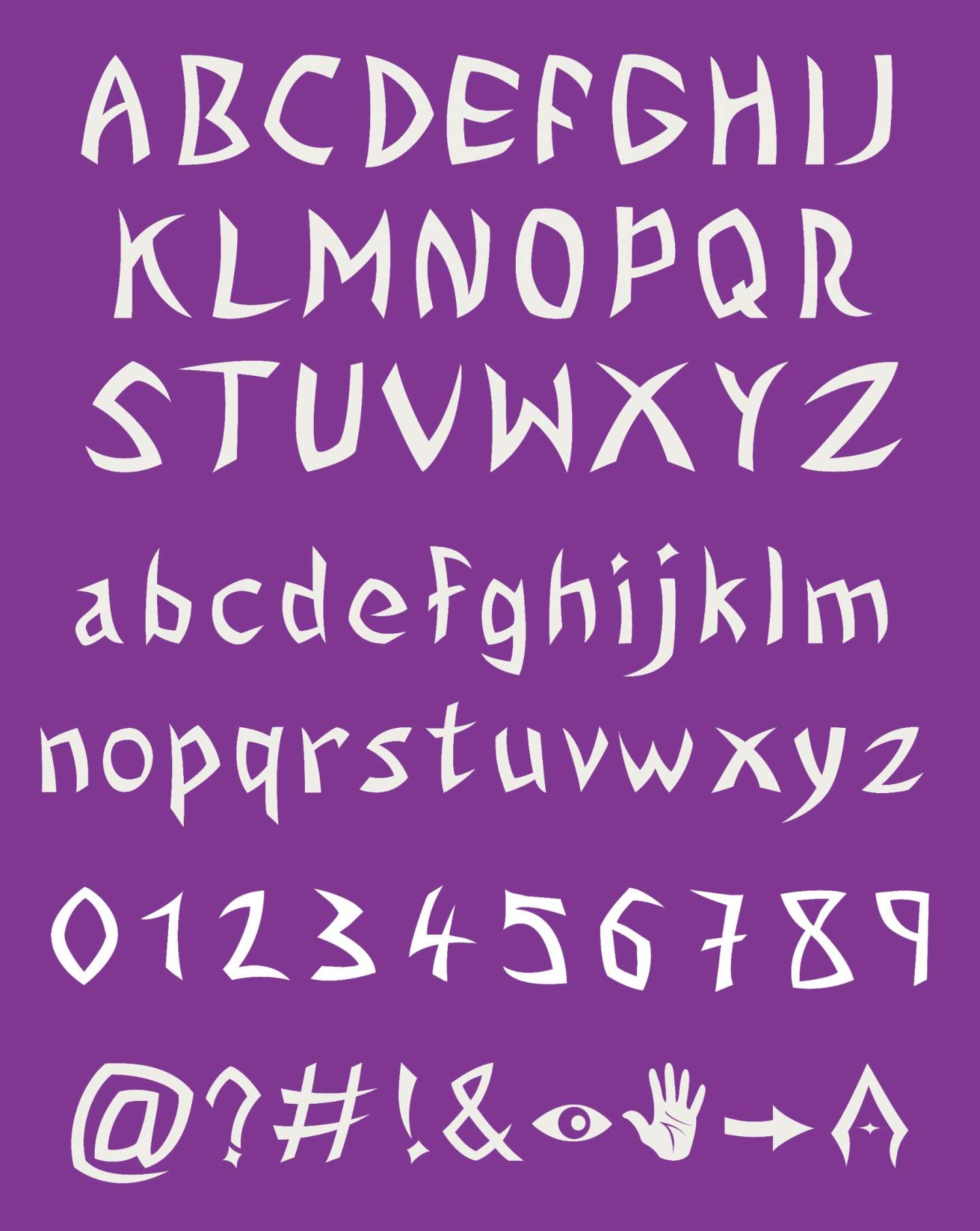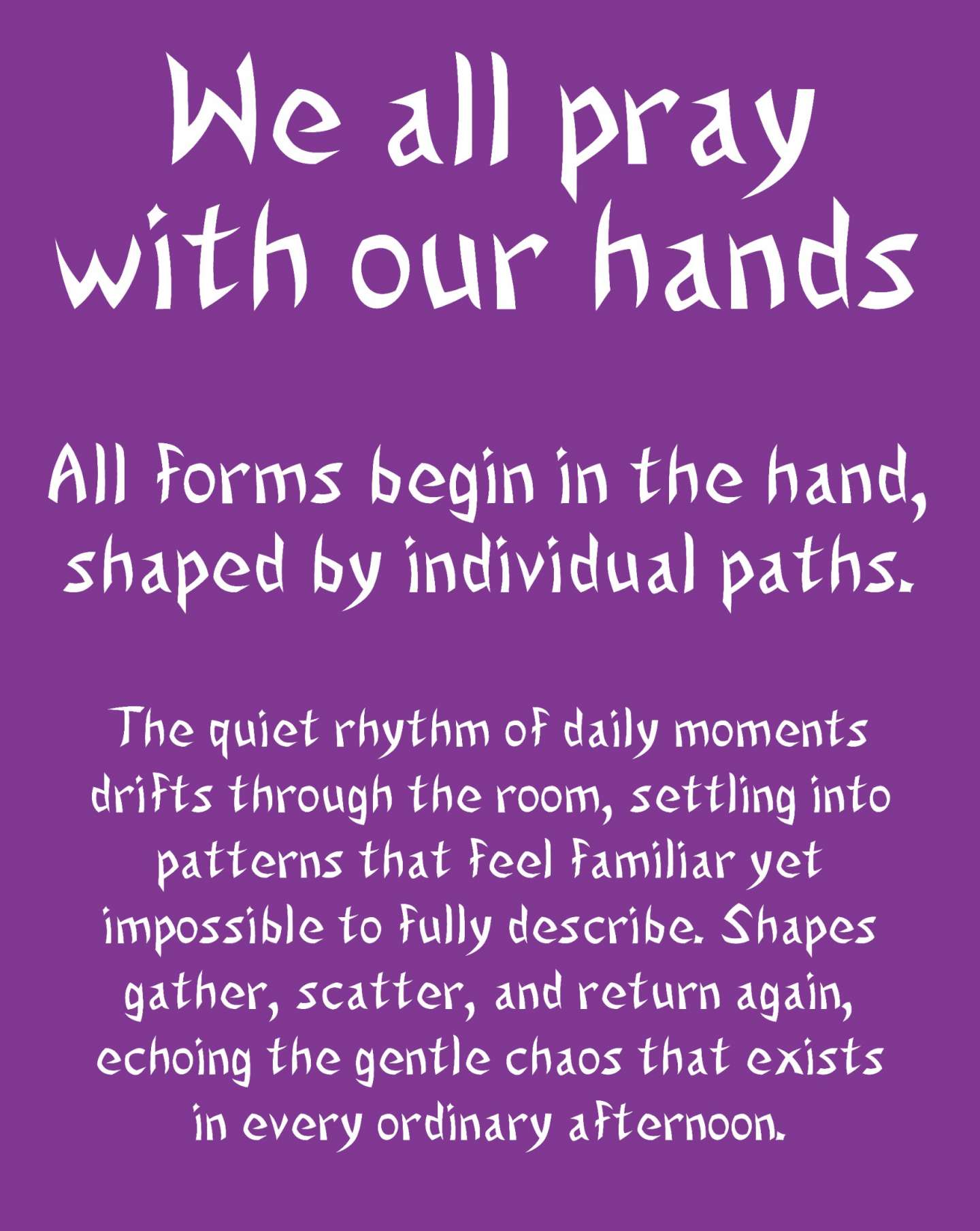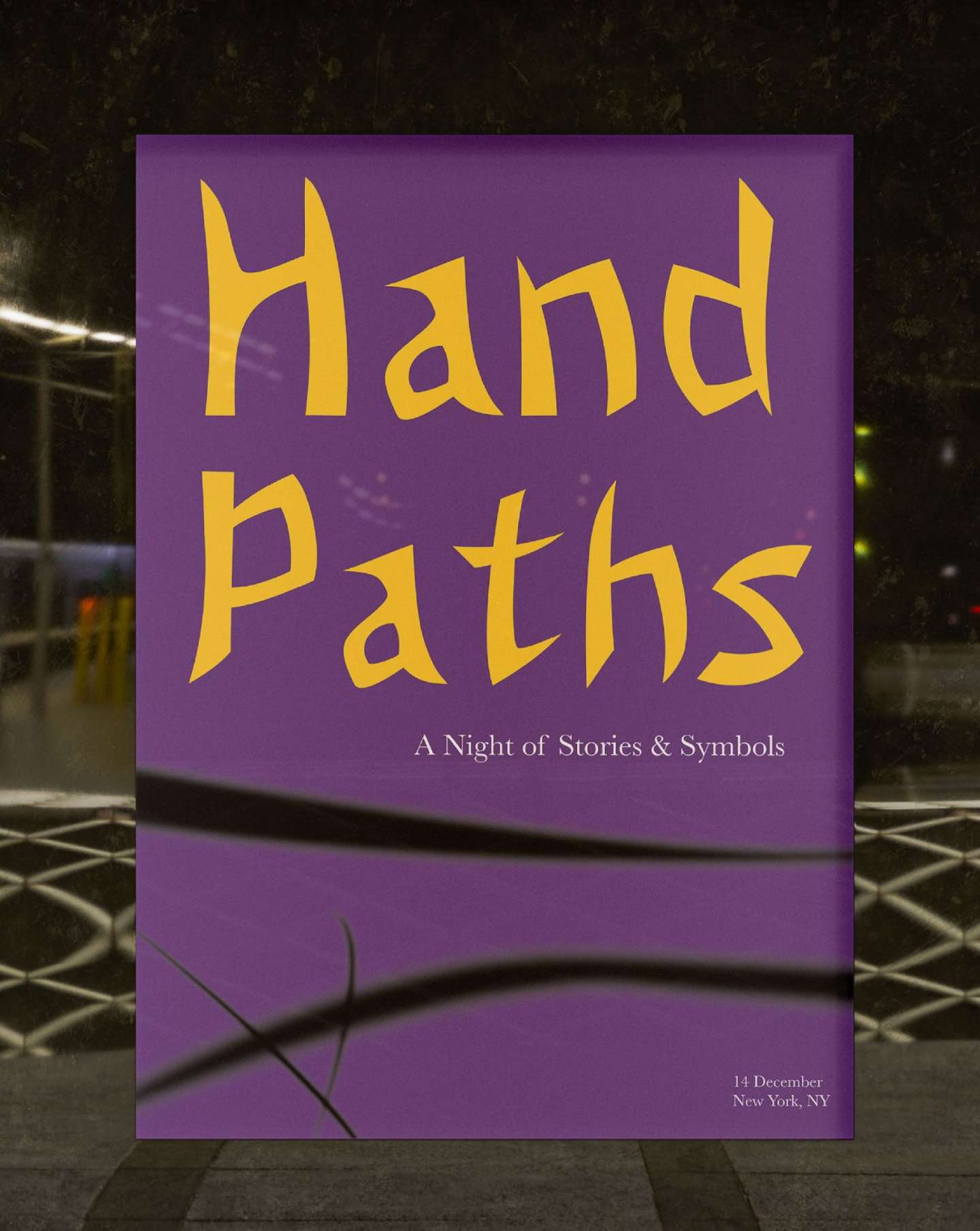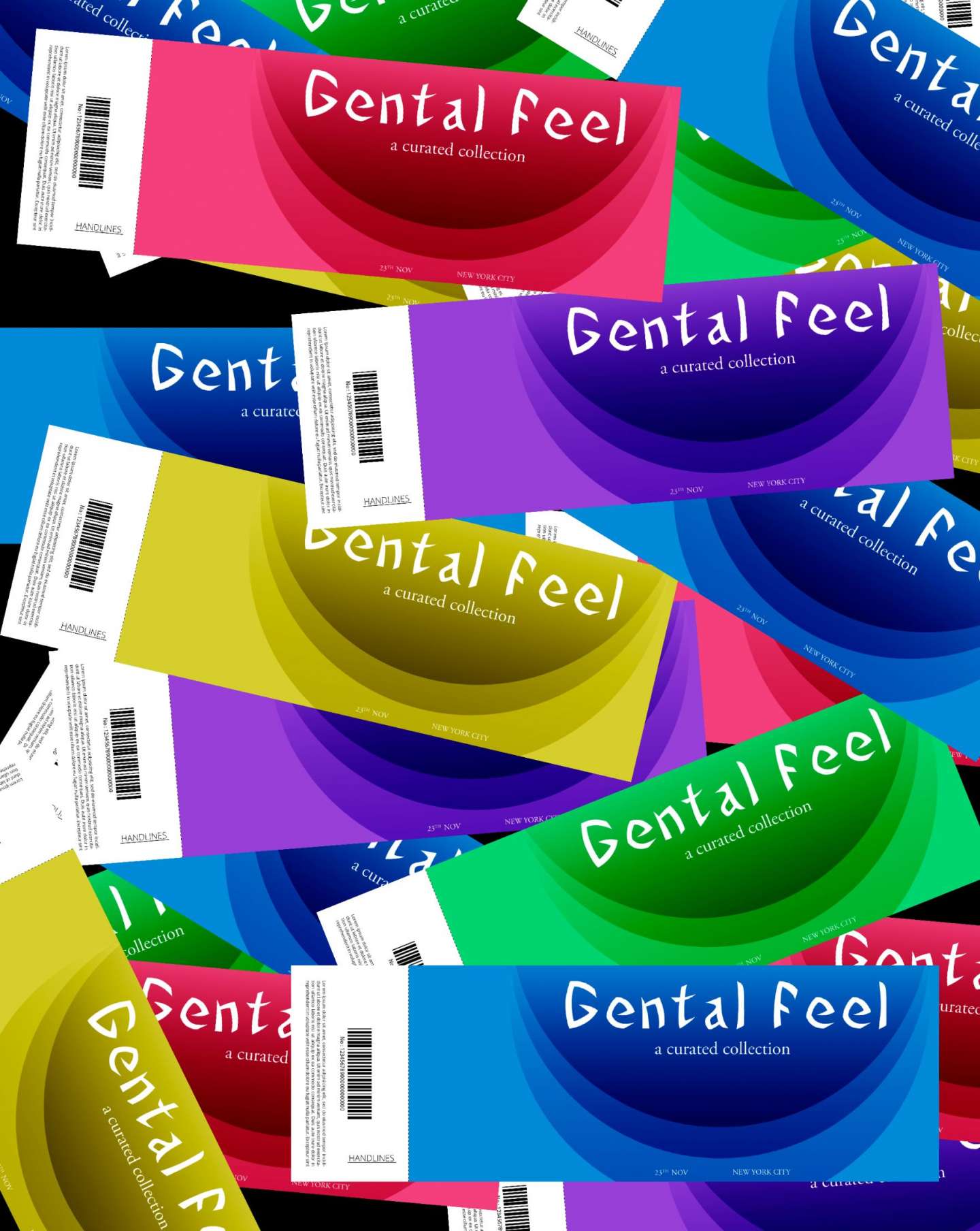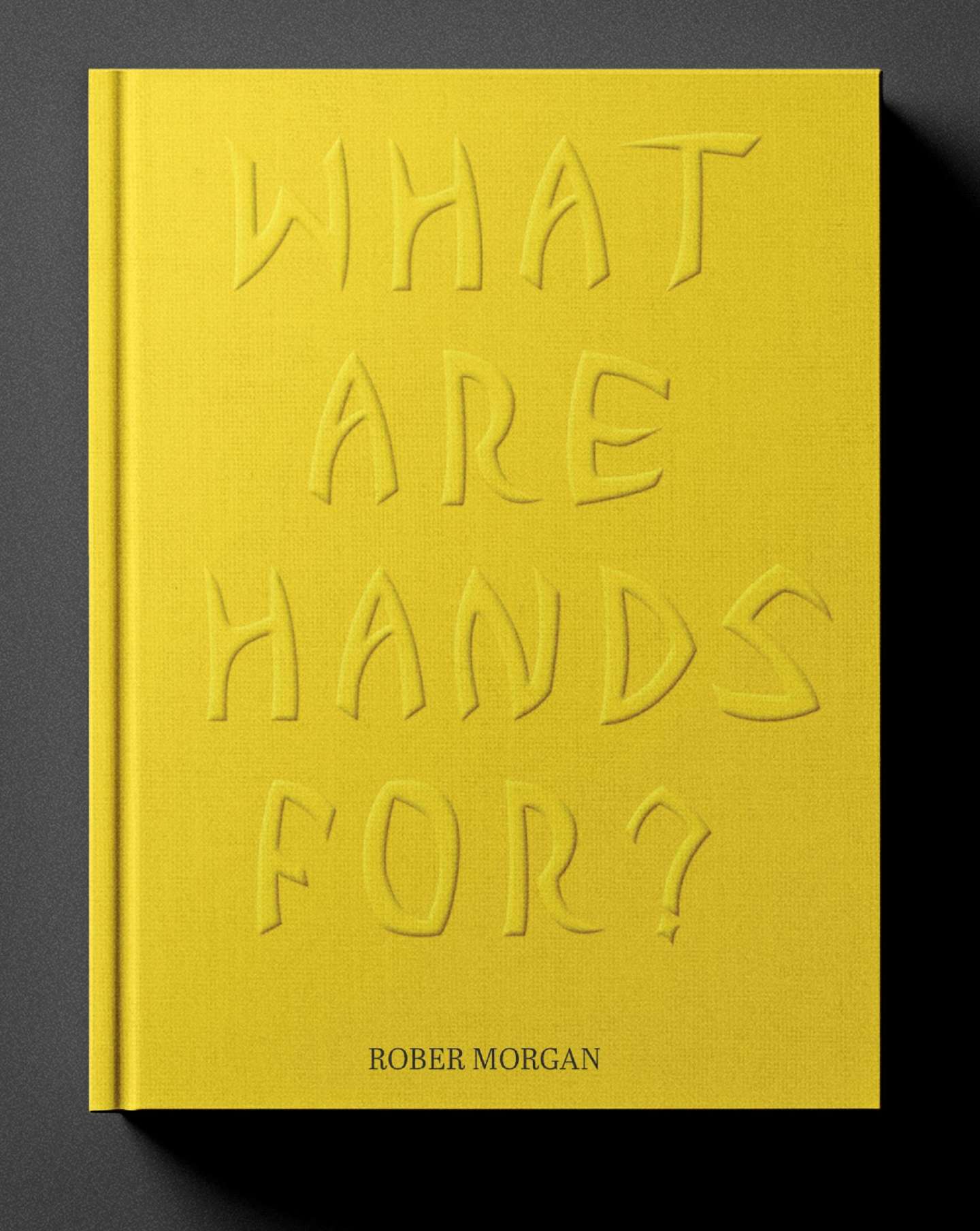
Handlines is a display typeface inspired by the organic lines of the human palm symbols of identity, intuition, and individuality. Rather than copying palm lines directly, it translates their fluidity and imperfection into expressive, rhythmic strokes.
Each character feels intentional yet human, with subtle variations in weight and form that suggest movement over rigid structure. Designed for display use, Handlines balances clarity with a handcrafted feel and works best at large sizes.
Ideal for branding, logos, packaging, posters, and motion.